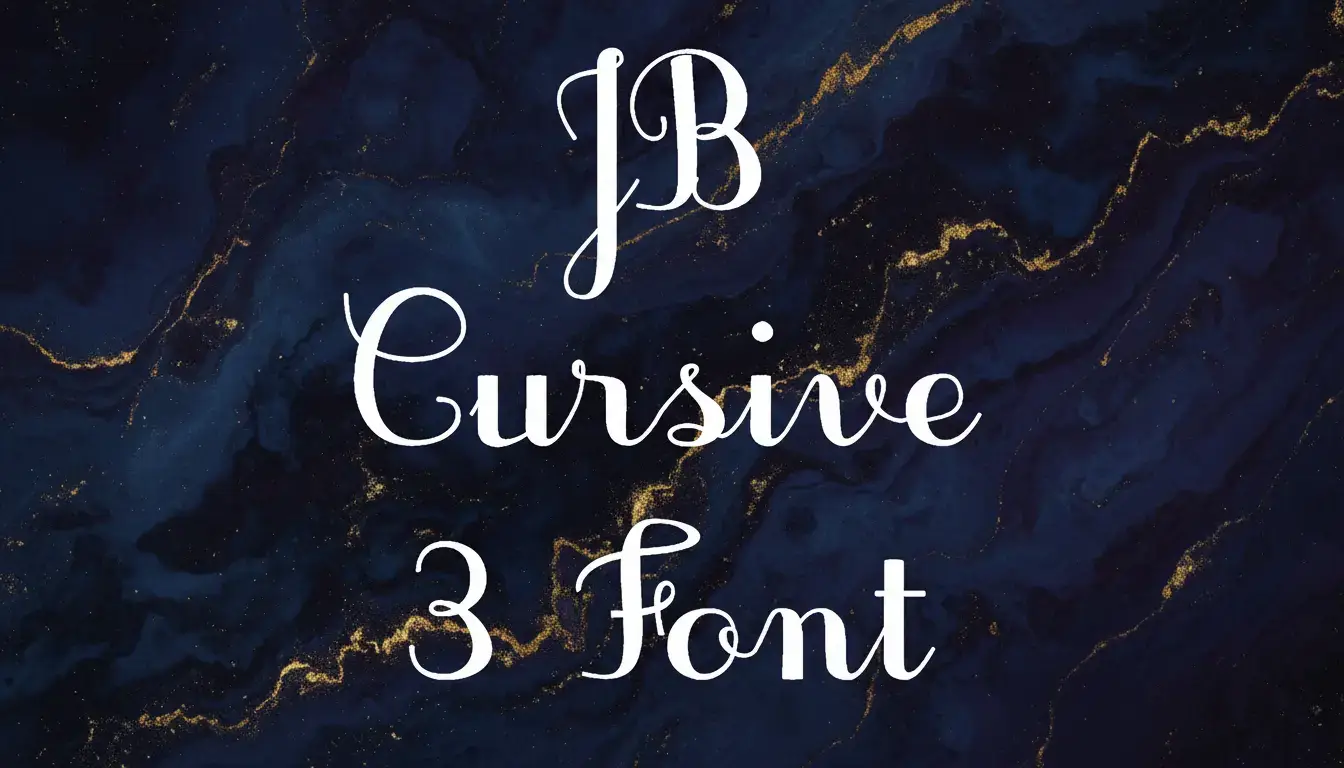
JB Cursive 3 Font
JB Cursive 3
JB Cursive 3 is a script font. It has that hand-lettered, flowing feel people look for when regular type seems too stiff. The free download includes two styles, and you can try every one of them with your own text in the preview above.
What You Can Type With JB Cursive 3
JB Cursive 3 covers the full alphabet in upper and lowercase, plus all ten numbers, so you can set names, dates and prices without switching fonts. Common punctuation such as &, !, ? and @ is included as well. It also has the accented letters you need for Spanish, French, German, Portuguese and Italian.
Where JB Cursive 3 Works Best
Designers usually reach for fonts like JB Cursive 3 when they're making wedding invitations, logos and signature-style headings. Script fonts read best in short bursts, so keep it to names, titles and one-line quotes. Skip all caps: script capitals are drawn to start a word, not to fill one. Because the family has more than one style, you can mix them in a single design for headings, subheadings and highlights.
Does JB Cursive 3 support accented letters?
Yes. JB Cursive 3 includes the accented letters needed for Spanish, French, German, Portuguese and Italian, so it works for more than just English.